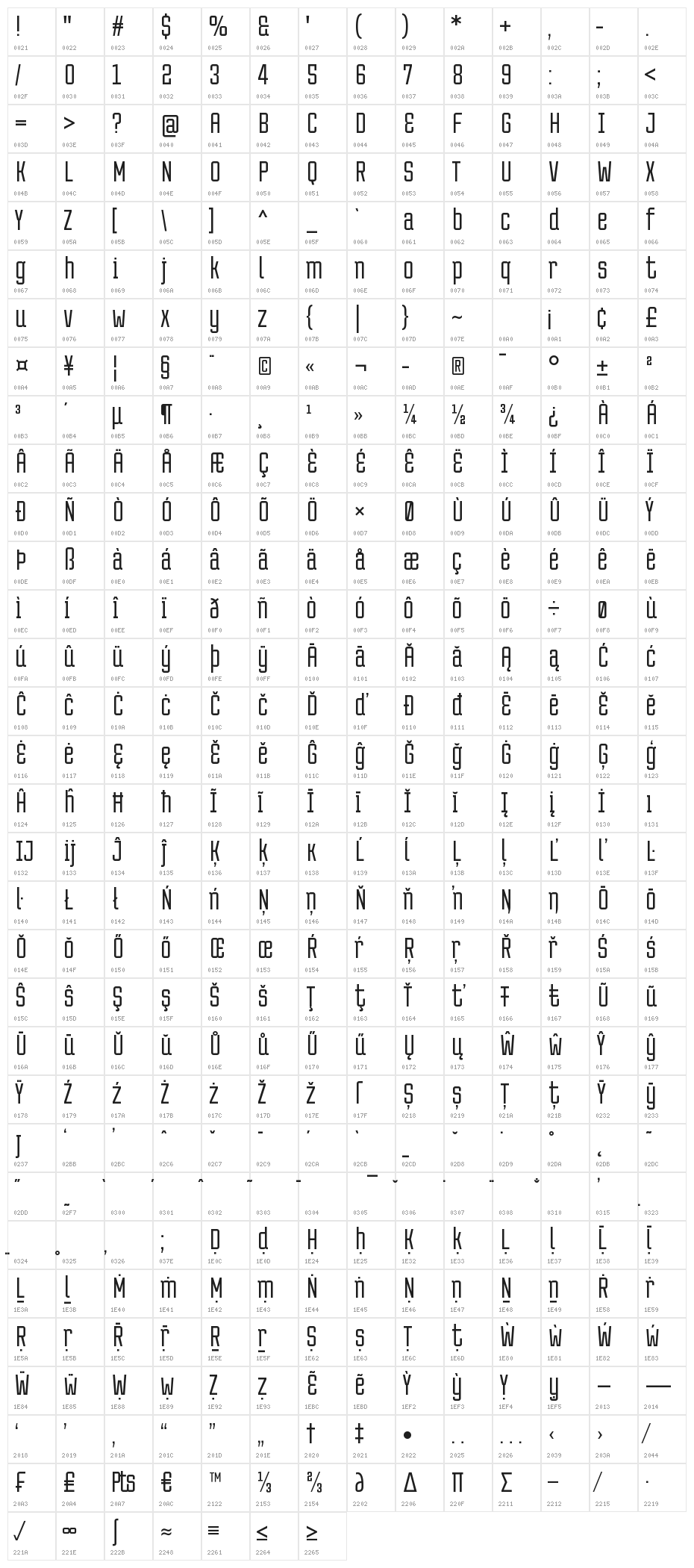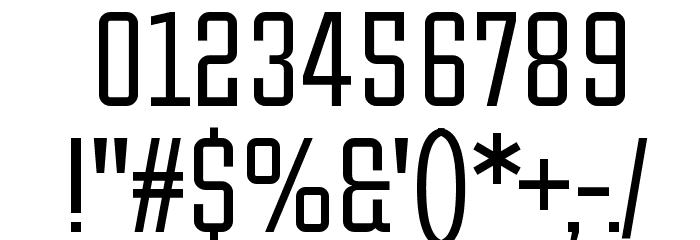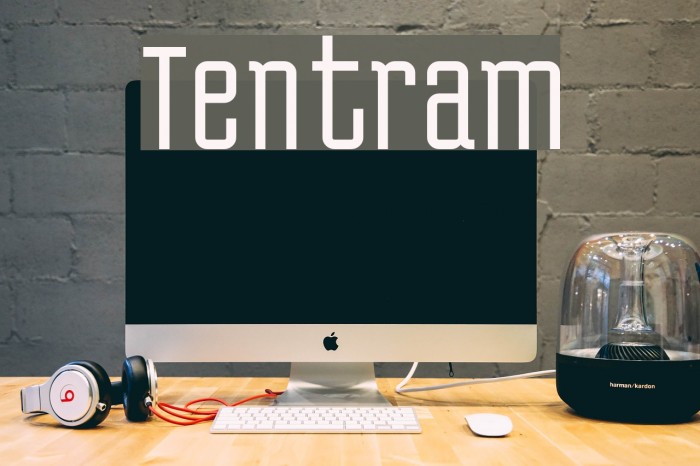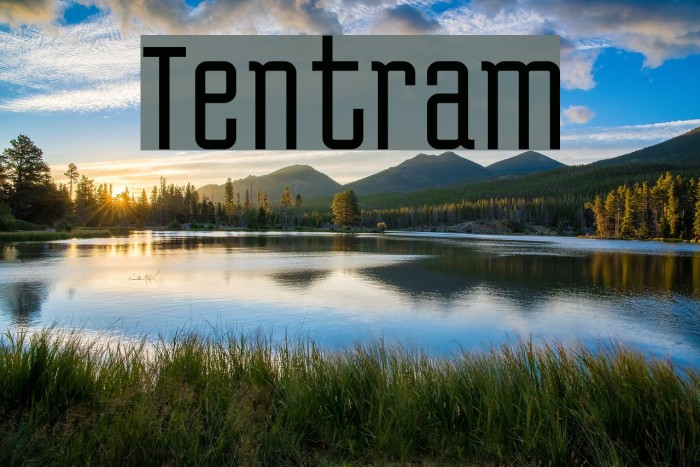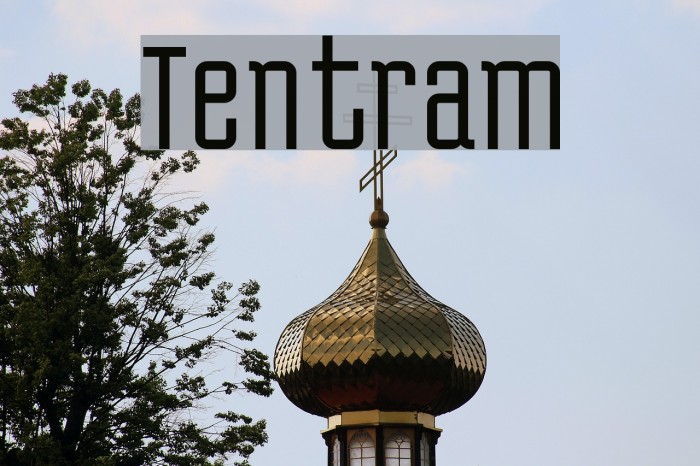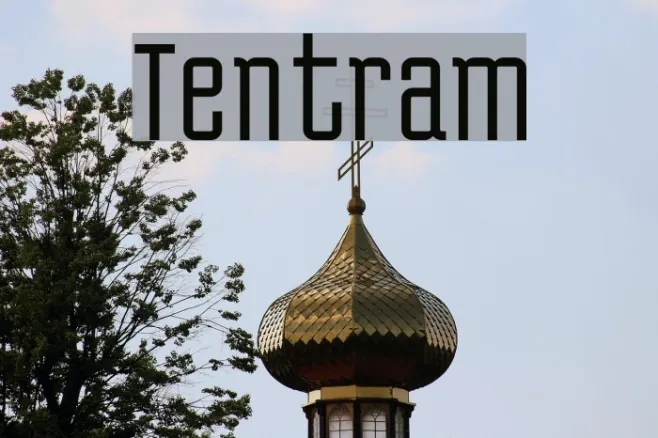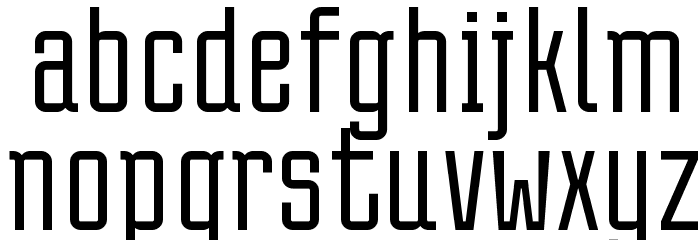
Tentram Font
Tentram Description
This font features a modern and clean design with a monospaced structure, characterized by its uniform width across all characters. The letters are tall and narrow, with a geometric feel that gives it a contemporary look. The strokes are consistent in thickness, providing a low contrast appearance that enhances readability. The uppercase and lowercase letters maintain a cohesive style, while the numerals and special characters are designed to match the overall aesthetic. This font is ideal for projects that require a sleek and professional appearance.
| Use Case | Coding, Technical documentation, Minimalist design |
| Proposed Projects | Ideal for coding environments, technical documentation, and minimalist graphic design projects. |